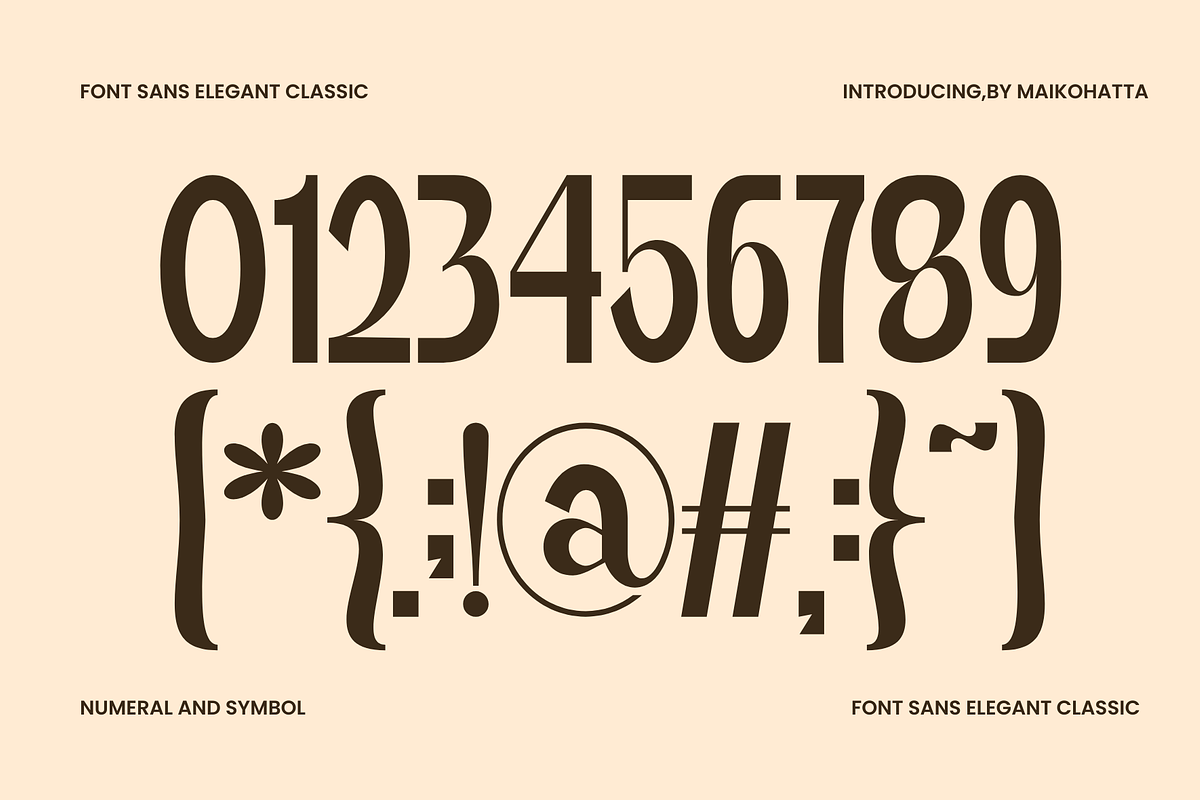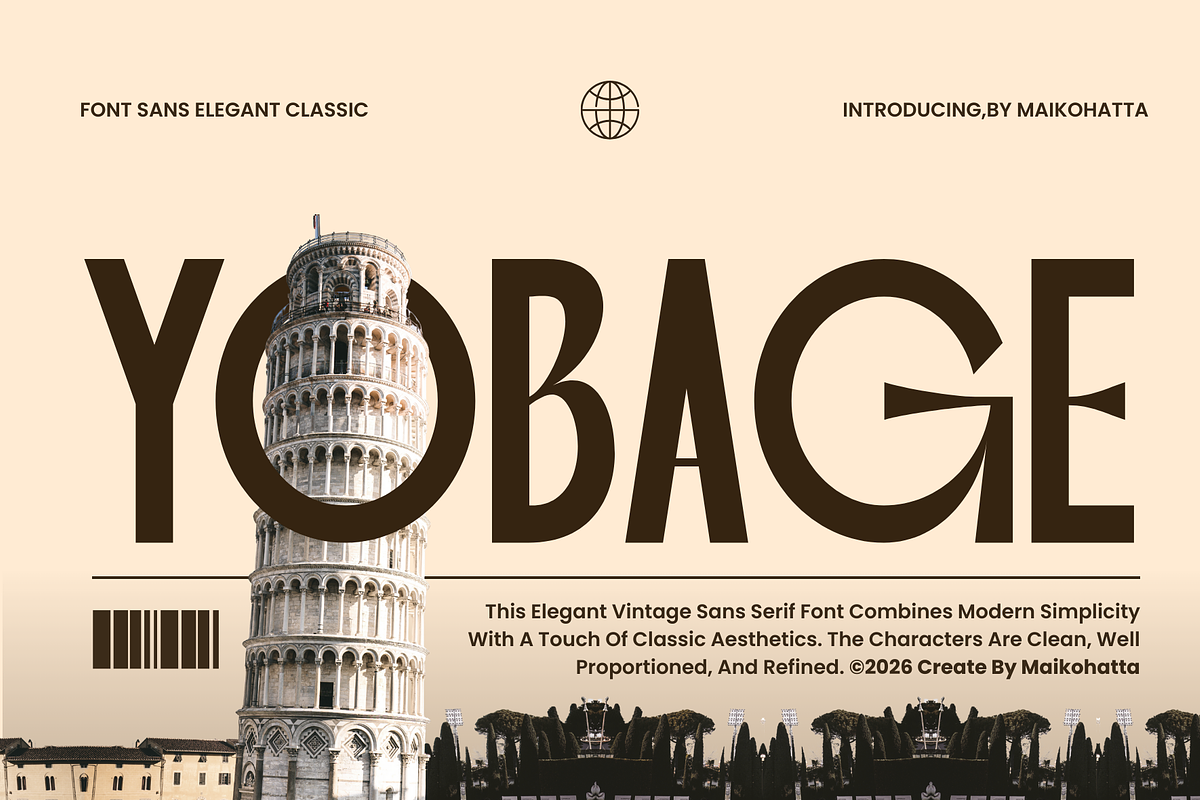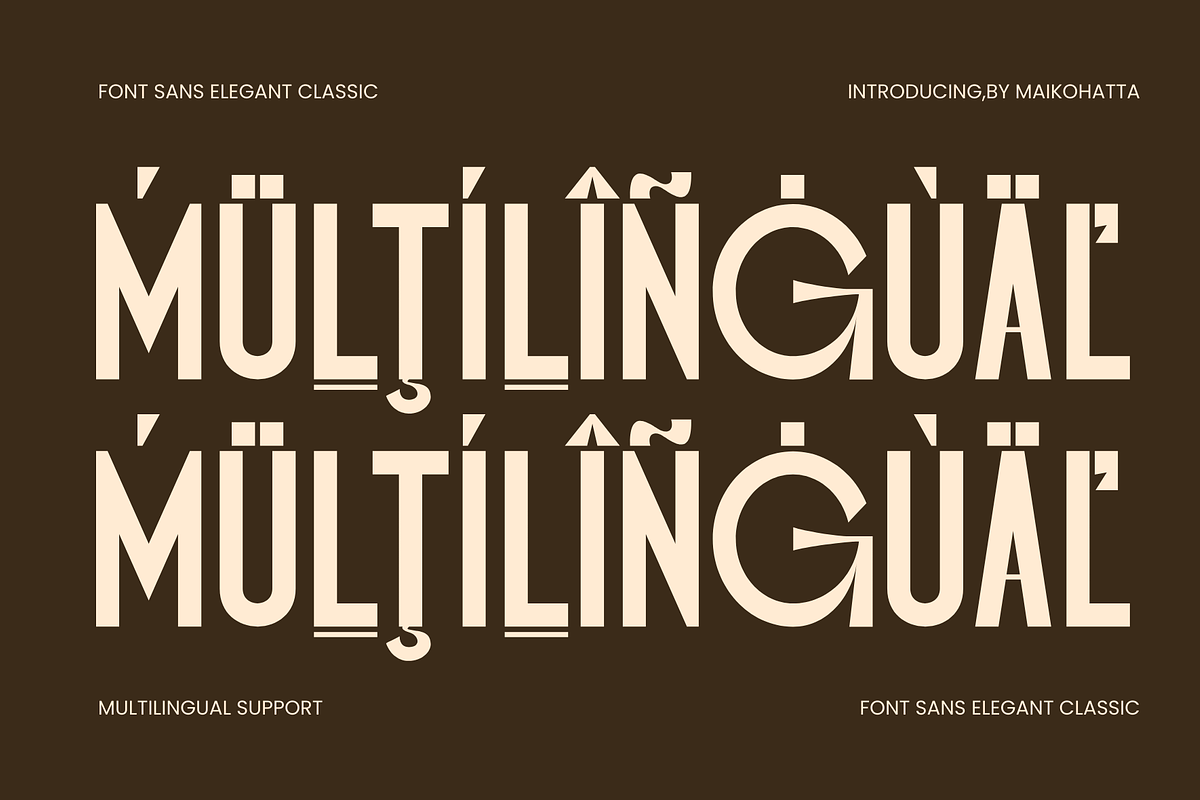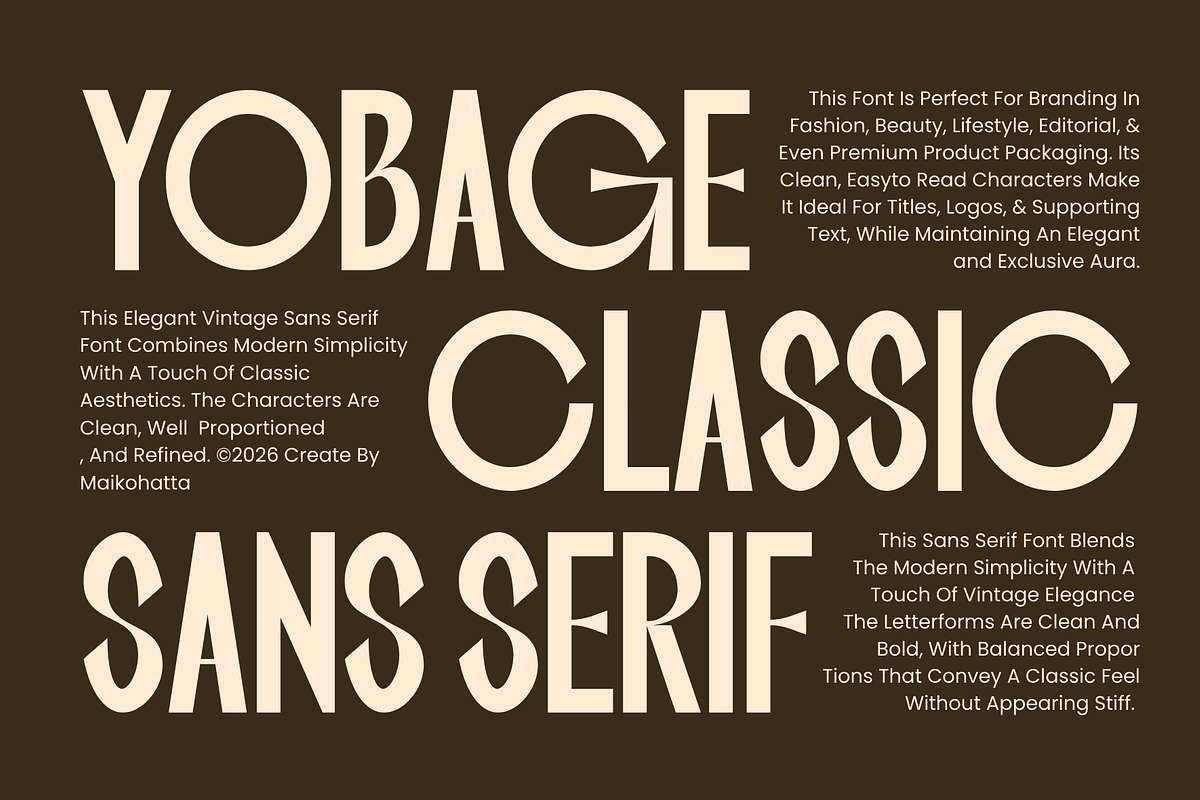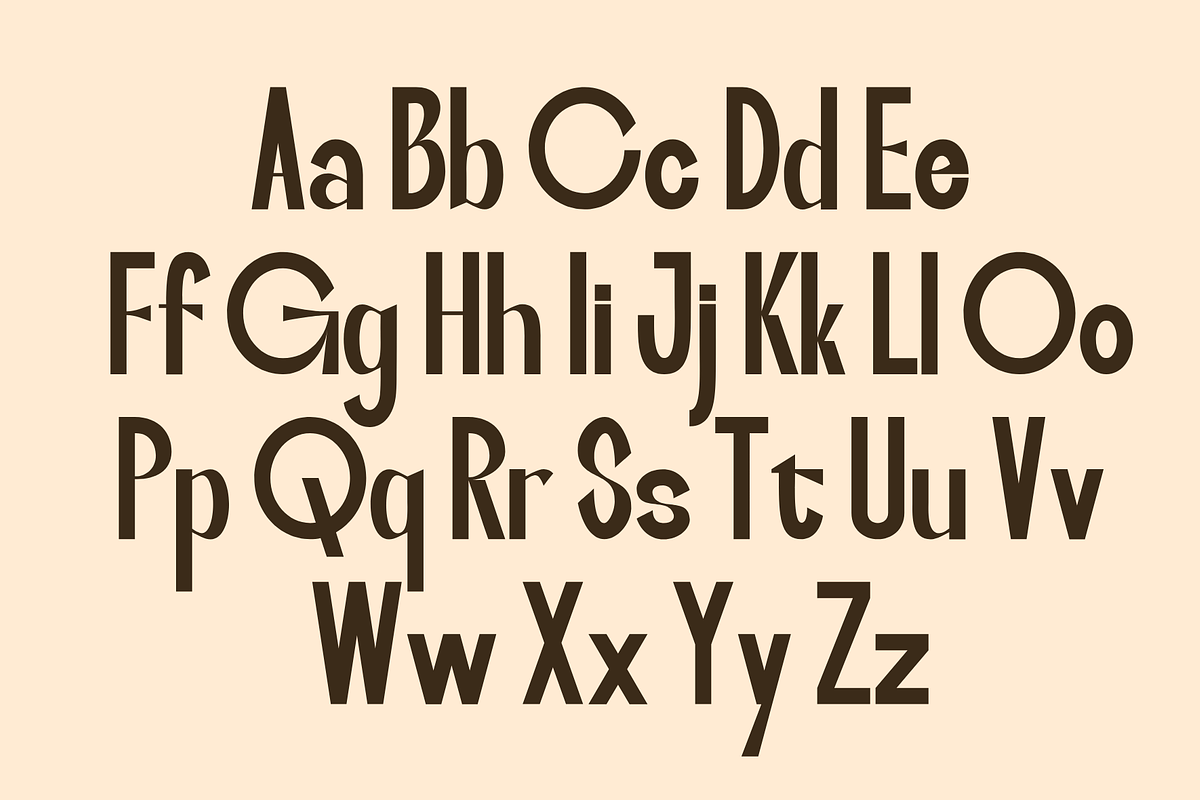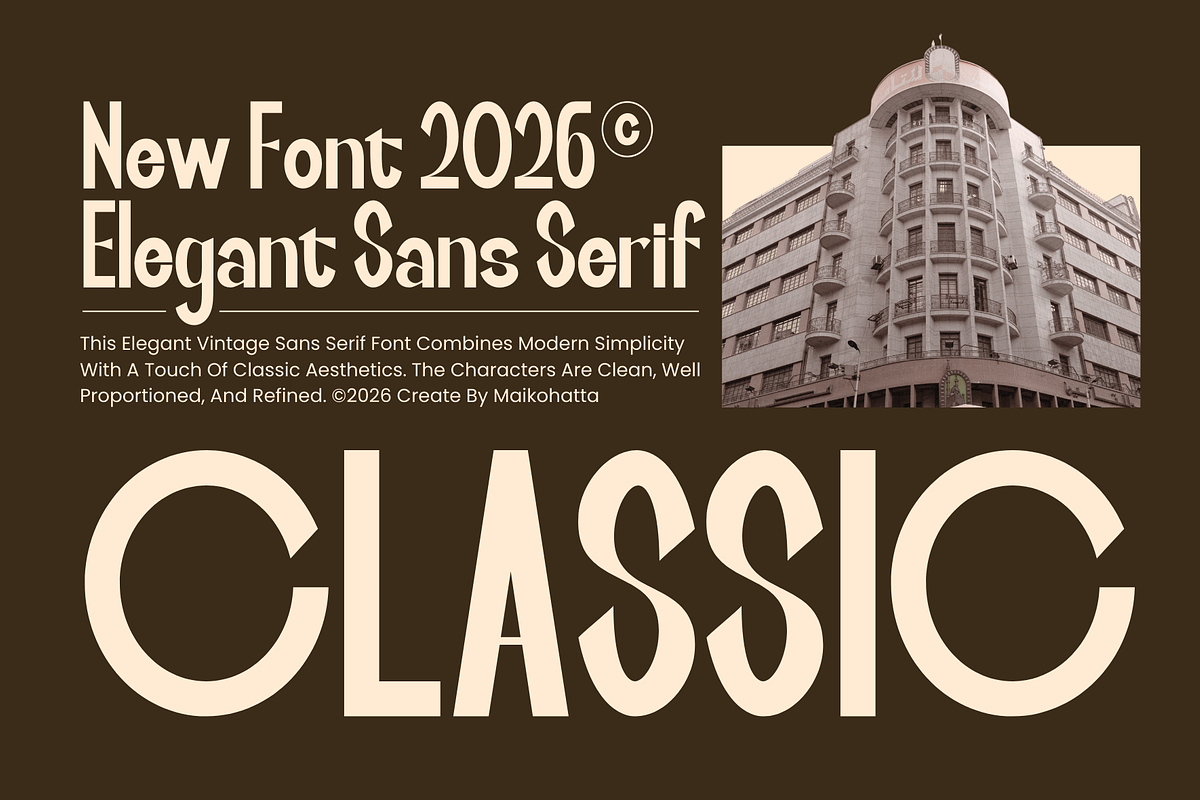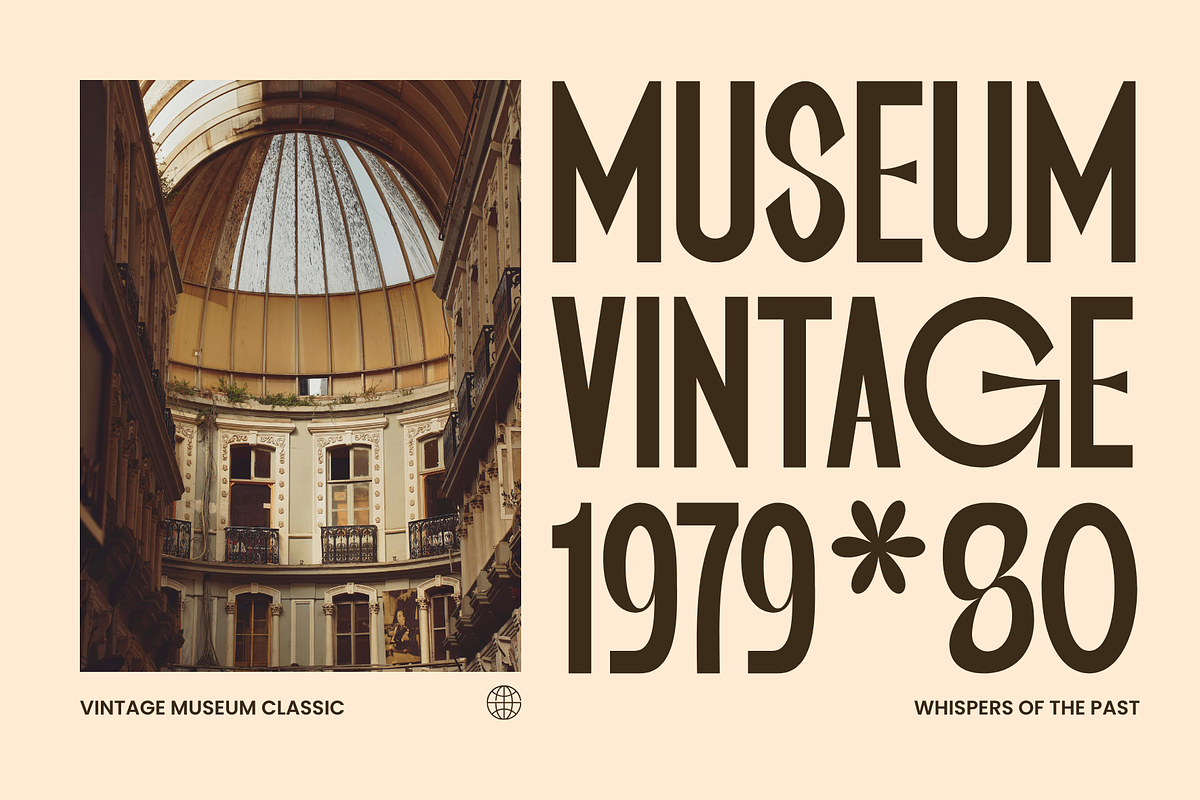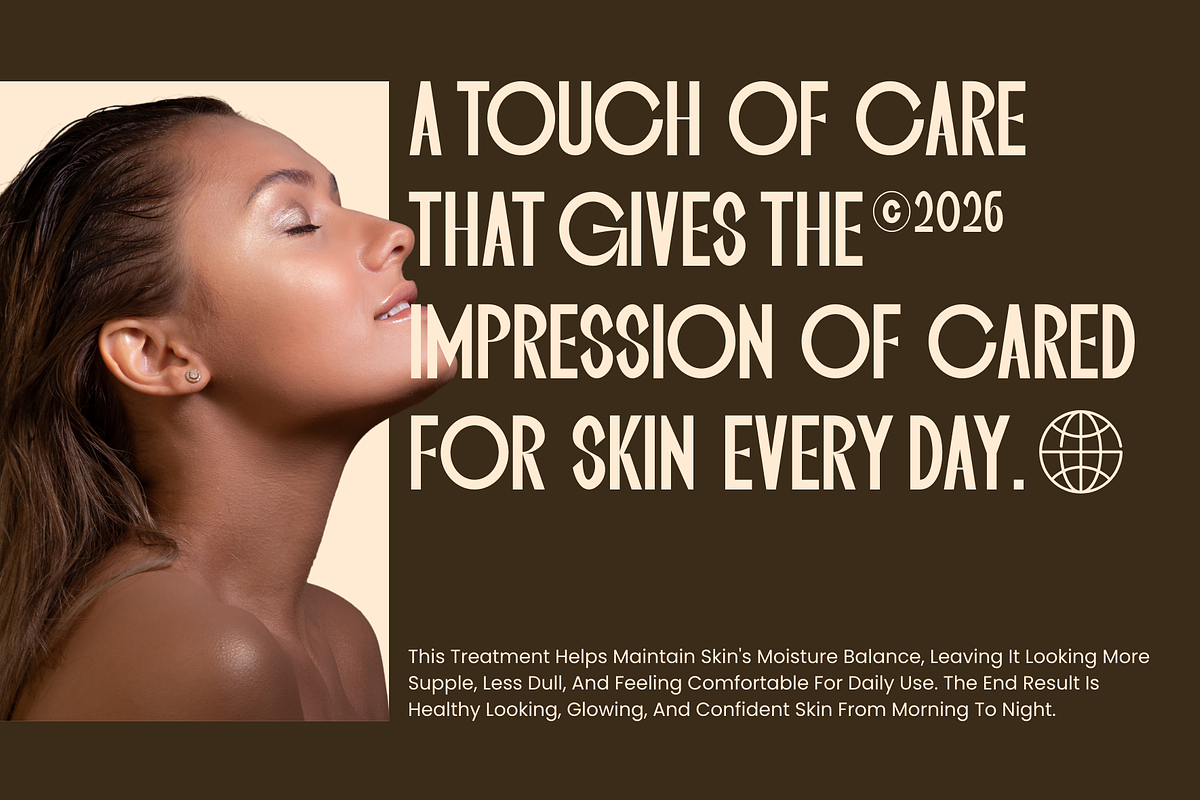
Yobage – Elegant Sans Serif Font
Introducing our new product Yobage – Elegant Sans Serif Font
Yobage is an elegant classic sans serif font that blends modern simplicity with timeless vintage aesthetics. Designed with clean shapes and well-balanced proportions, this font delivers a refined and professional look across various design needs.
Perfect for branding, editorial layouts, logos, packaging, posters, fashion designs, magazines, and social media graphics, Yobage brings a sophisticated yet versatile character to your typography.
Its clear readability and stylish presence make it suitable for both display and text usage, giving designers flexibility while maintaining a visual appeal.